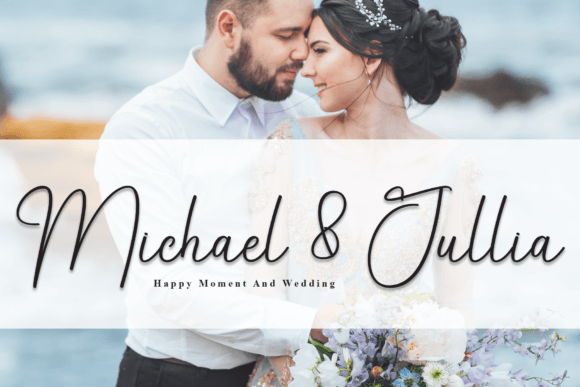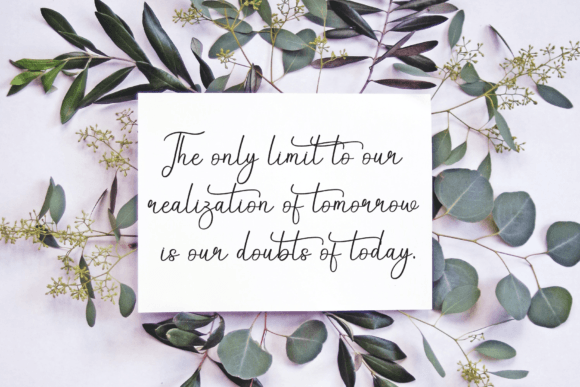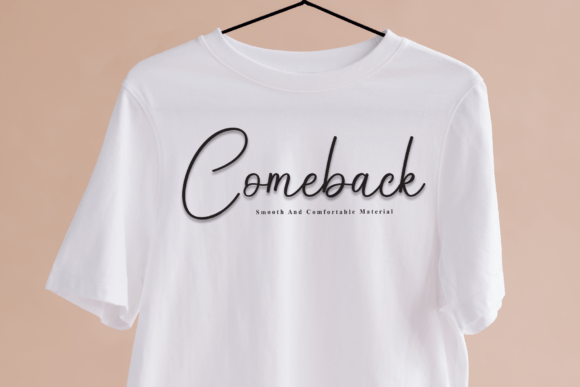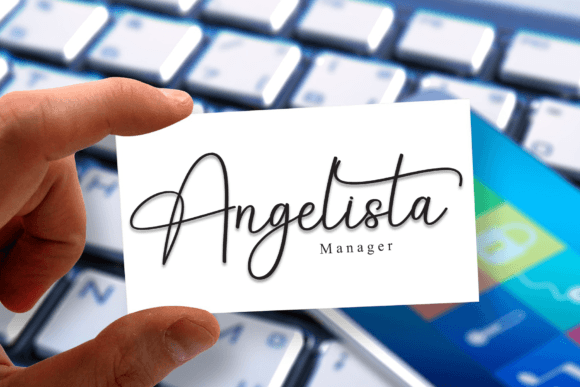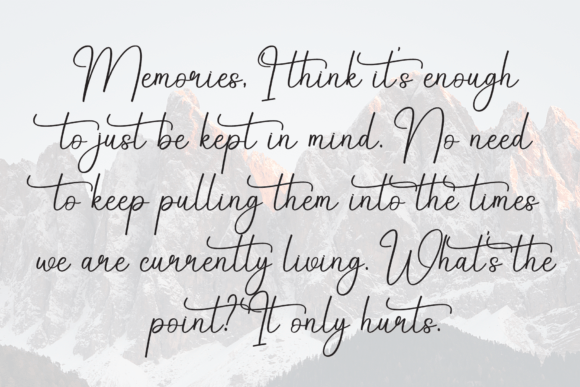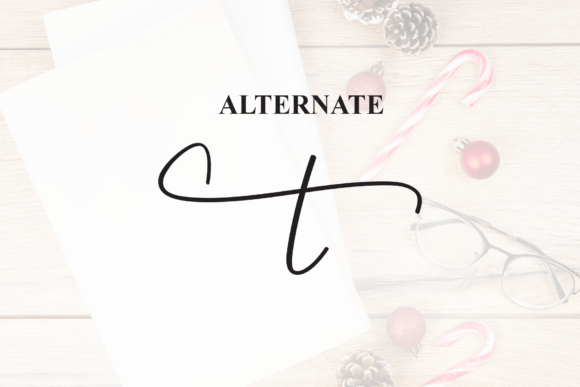
Getting into the Holiday Spirit with Book Christmas Font
As the snowflakes start to fall and the fireplace crackles to life, I find myself surrounded by the magic of the holiday season. It’s the perfect time to get creative and craft unique gifts, cards, and decorations that reflect the warmth and love of the season. And what better way to do that than with a beautiful font that captures the essence of Christmas?
Enter Book Christmas Font, a stunning script font that exudes elegance and sophistication. Designed to add a personal touch to your designs, this font is perfect for wedding invitations, thank you cards, quotes, and more. Whether you’re a seasoned designer or a DIY enthusiast, Book Christmas Font is a valuable addition to your toolkit, allowing you to create truly unique and memorable designs that will be cherished for years to come.
Key Features of Book Christmas Font
- Unique Characteristics: Book Christmas Font features a traditional, elegant design with intricate details, making it perfect for creating a festive and sophisticated atmosphere during the holiday season.
- Font Weight: Book Christmas Font comes in a range of weights, from Light to Bold, allowing designers to choose the perfect weight to match their design’s tone and style.
Designer Review: Book Christmas Font
First off, I think it’s worth noting that the Book Christmas Font has a certain charm to it. ✨ The classic, traditional feel is reminiscent of old-fashioned holiday cards, which could be a nice touch for projects looking to evoke a sense of nostalgia.
The font’s design is fairly straightforward, with clear lines and a consistent aesthetic. ✨ It’s easy to read, and the font sizes and spacing are well-balanced. The font also includes a range of punctuation and special characters, which is always a plus.
- ⚠️ The font’s design may be too traditional for some users, who might find it too plain or lacking in flair.
- ⚠️ The font’s character set is limited to Latin, which may be a problem for users who need to support other languages.
Overall, I think the Book Christmas Font is a decent choice for projects that need a classic, traditional feel. However, it’s not the most versatile font, and users may find it lacking in certain areas. ✨